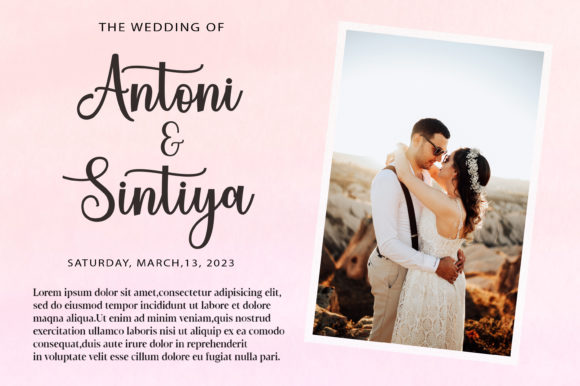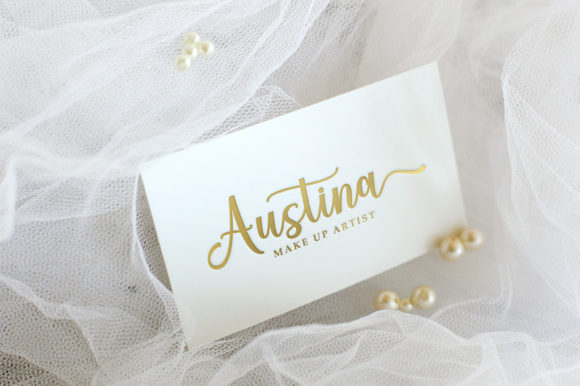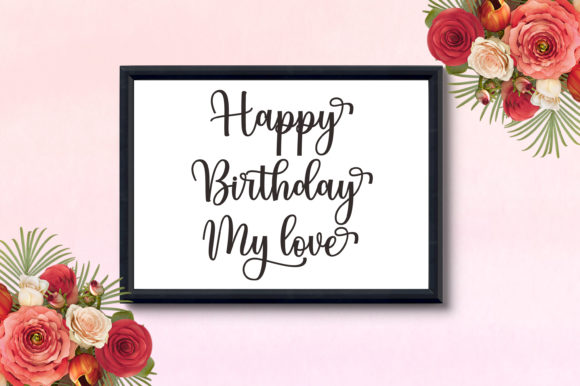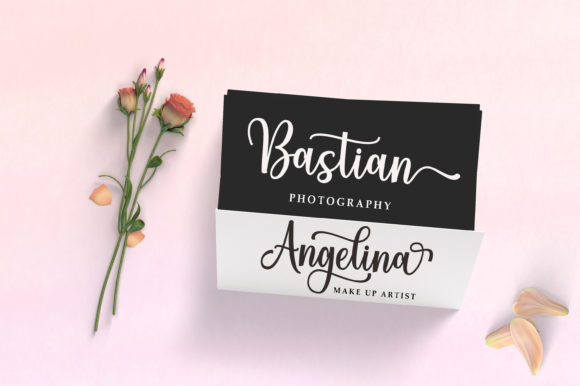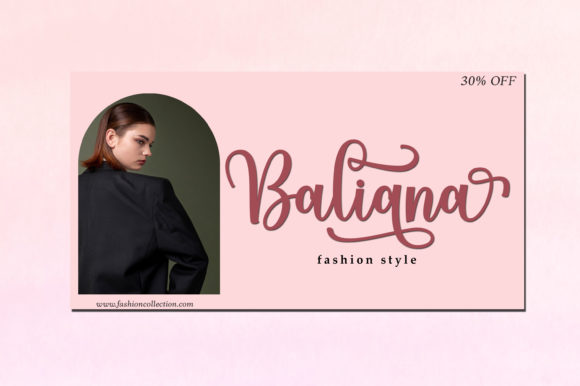
Glowing Shine Font
About Glowing Shine Font
Glowing Shine is a captivating and elegant script font that radiates beauty and sophistication. Its graceful and delicate letterforms make it an ideal choice for a variety of design projects, from branding and packaging to invitations and business cards.
The refined and exquisite nature of Glowing Shine’s characters adds a touch of class and elegance to any design. Whether you’re working on a luxury brand, a home appliance design, or a special event invitation, this font brings a sense of refinement and charm that elevates the overall aesthetic.
One of Glowing Shine’s standout features is its PUA encoding, which allows you to easily access all the glyphs and swashes. This encoding enables you to effortlessly incorporate decorative elements, alternate characters, and unique ligatures into your text. Whether you’re embellishing your designs with elegant swirls or customizing initials, the PUA encoding ensures a seamless and creative process.
Glowing Shine’s exquisite and delicate script style creates a harmonious balance between beauty and readability. Its flowing curves and intricate details make it visually appealing while maintaining clarity and legibility, ensuring that your message is conveyed with elegance and precision.
The versatility of Glowing Shine shines through in its ability to adapt to various design contexts. Whether you’re creating a logo for a high-end brand, designing product packaging that exudes sophistication, or crafting an invitation that captivates recipients, this font’s timeless and enchanting quality adds a touch of allure to every project.
In summary, Glowing Shine is a beautiful and delicate script font that adds an elegant and refined touch to any design. Its PUA encoding empowers you to explore a multitude of creative possibilities, while its graceful letterforms convey a sense of luxury and sophistication. Whether used in branding, packaging, invitations, or beyond, Glowing Shine is a font that radiates with timeless beauty and charm.